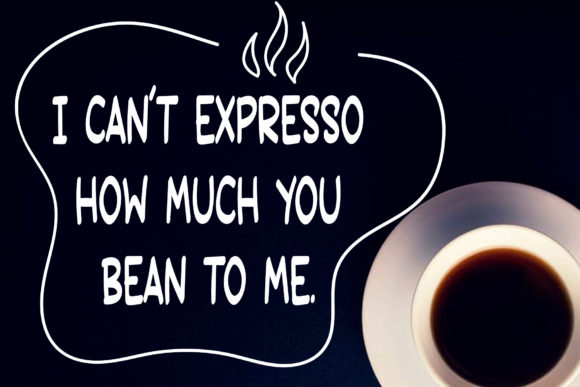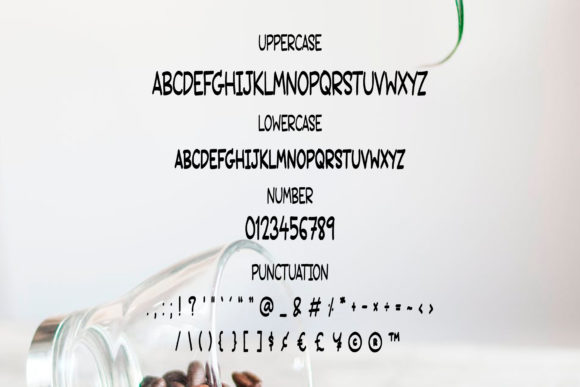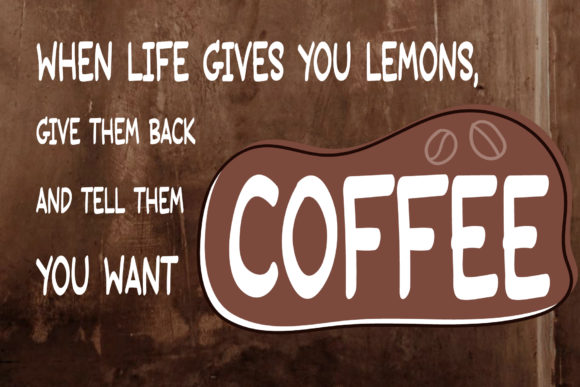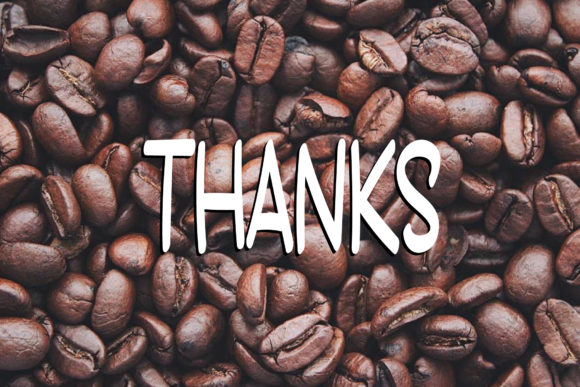
Coffee Factory Font: A Simple and Natural Handwritten Style
Are you looking for a font that can add a touch of warmth and friendliness to your designs? Look no further than the Coffee Factory font, a simple and natural handwritten style that’s perfect for a variety of projects. In this article, we’ll take a closer look at the Coffee Factory font, its features, and how you can use it to elevate your designs.
What is Coffee Factory Font?
Coffee Factory is a beautiful, handwritten font that’s designed to look simple, yet elegant. It’s a versatile font that can be used for a wide range of designs, from informal to friendly, and everything in between. The font features a natural, hand-crafted look that’s reminiscent of handwritten notes and letters.
Key Features of Coffee Factory Font
- Simple and Natural: The Coffee Factory font has a simple, natural look that’s perfect for designs that require a friendly and approachable feel.
- Handwritten Style: The font features a handwritten style that’s reminiscent of notes and letters written by hand.
- Versatile: Coffee Factory is a versatile font that can be used for a wide range of designs, from informal to friendly.
- Easy to Read: The font is easy to read, making it perfect for body text and other written content.
How to Use Coffee Factory Font
Coffee Factory font can be used for a variety of designs, including:
- Branding: Use Coffee Factory font to create a friendly and approachable brand identity.
- Packaging: Add a personal touch to your packaging designs with the Coffee Factory font.
- Signage: Use the font to create eye-catching signage that’s easy to read.
- Digital Media: Use Coffee Factory font in your digital media, such as social media graphics, blog posts, and more.
Why Choose Coffee Factory Font?
There are many reasons why you should choose Coffee Factory font for your next project. Here are a few:
- Unique Look: The Coffee Factory font has a unique, handwritten look that’s sure to set your designs apart.
- High-Quality: The font is high-quality and designed to look great in a variety of sizes and resolutions.
Tips for Using Coffee Factory Font
Here are a few tips for using Coffee Factory font:
- Use it with a contrasting font: Pair Coffee Factory font with a contrasting font to create visual interest.
- Experiment with colors: Try out different colors to see what works best with the font.
- Use it for body text: Coffee Factory font is easy to read, making it perfect for body text.
In conclusion, Coffee Factory font is a simple and natural handwritten font that’s perfect for a variety of designs. Its unique look, ease of use, and high-quality design make it a great choice for designers and crafters. Whether you’re looking to create a friendly brand identity, add a personal touch to your packaging, or create eye-catching signage, Coffee Factory font is a great choice. So why wait? Add Coffee Factory font to your projects today and see the difference it can make!